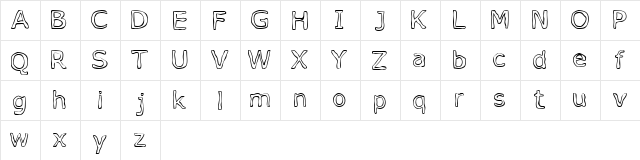
VOpen Regular
Design Context for VOpen Typeface
VOpen takes a measured approach to typography — its balanced proportions and neutral character make it a reliable workhorse for both digital and print work.